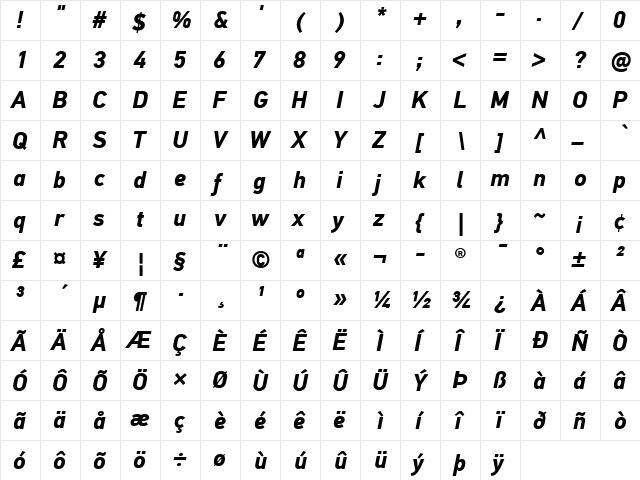
PF DinText Pro Bold Italic Font Preview
| Foundry | Parachute蠗orldwide |
| Designer | Panos Vassiliou |
Design Context for PF DinText Pro Typeface
PF DinText Pro takes a measured approach to typography — its balanced proportions and neutral character make it a reliable workhorse for both digital and print work. Its italic angle brings a sense of urgency and motion to the letterforms. The heavy weight commands attention and anchors typographic hierarchies.